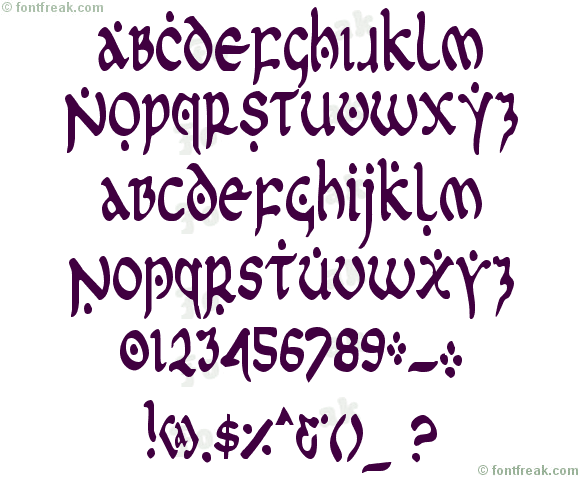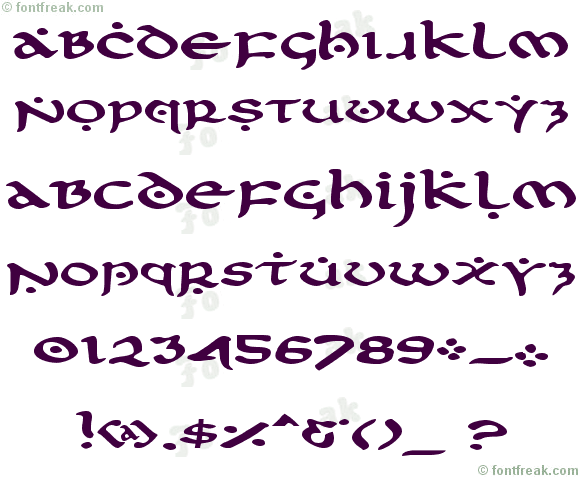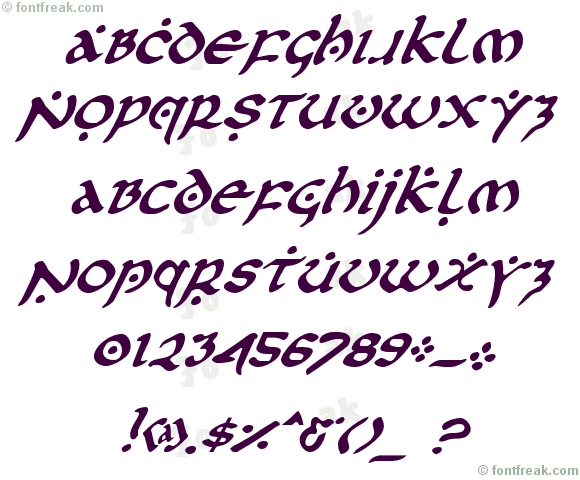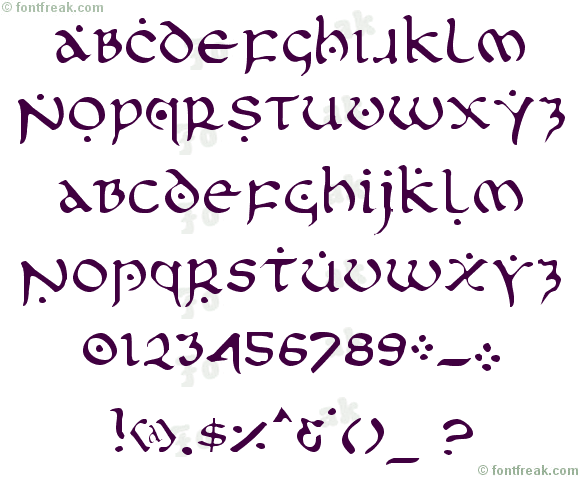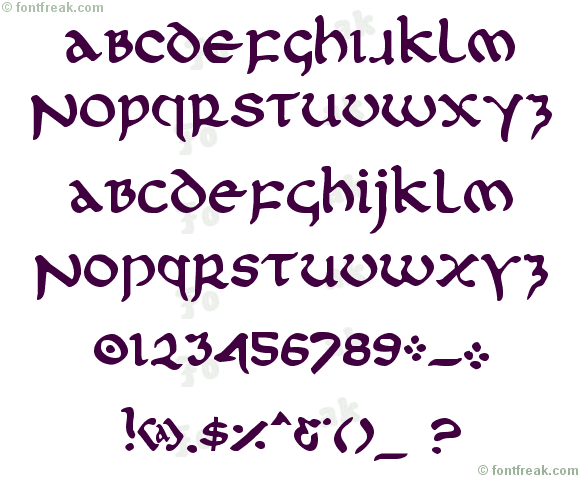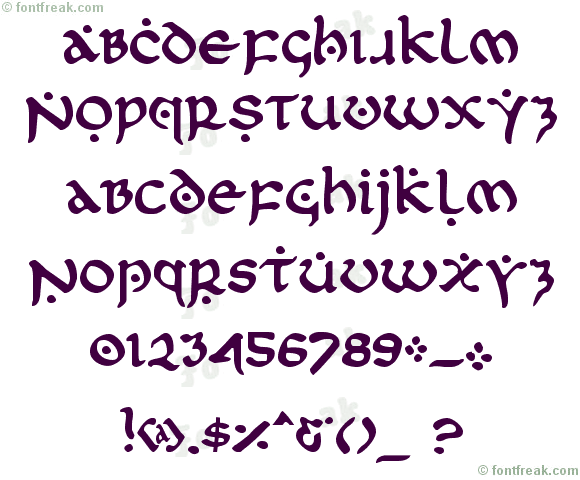
First Order
First Order Condensed
First Order Italic
First Order Expanded
First Order Plain
First Order Light
The First Order font by Iconian Fonts is a captivating display typeface that embodies a unique blend of elegance and modernity. Released in 2001, this freeware font showcases a condensed, italic style that makes it ideal for various creative applications. The First Order font features distinctive stroke weights, with a playful contrast that adds dynamism to its overall appearance. The spacing is meticulously crafted, allowing for excellent readability even in tighter layouts, while decorative elements like curved edges and rounded terminals lend a whimsical touch.
This font is particularly well-suited for a range of creative projects. Its bold and eye-catching design makes it an excellent choice for movie posters, where it can convey a sense of adventure and excitement. Additionally, the First Order font works beautifully for restaurant menus, offering an inviting and stylish presentation that can enhance the dining experience. Graphic designers may find it useful for branding and logo design, as its unique characteristics can help create a memorable visual identity. Furthermore, small business owners looking to add a touch of flair to their marketing materials will appreciate its versatility.
The target audience for the First Order font includes graphic designers, small business owners, and content creators who seek to make a statement with their typography. Its distinctive style and free availability make it accessible for anyone looking to elevate their designs.
What truly sets the First Order font apart is its ability to combine elegance with a touch of playfulness, making it a standout choice for those who desire a font that is both visually appealing and versatile. For anyone interested in enhancing their design projects, the First Order font free download offers a fantastic opportunity to incorporate this unique typeface into their work.